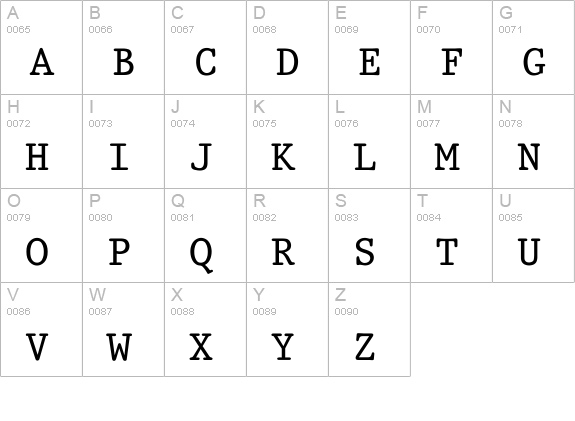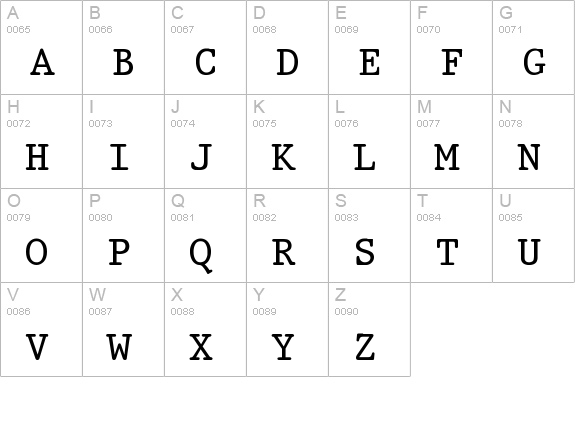
Shalemar Font Details
Shalemar font is a captivating typeface that effortlessly blends elegance with a modern twist. Its sleek and stylish design makes it the perfect choice for a wide range of creative projects, from branding and advertising to packaging and web design. With its clean lines and well-defined curves, Shalemar font exudes a sense of professionalism and sophistication. The unique combination of sharp angles and soft curves creates a harmonious balance that catches the eye and leaves a lasting impression. One of the most appealing aspects of Shalemar font is that it is available for free download at FontsMarket.com. This means that you can easily add this stunning typeface to your collection without any cost. Whether you're a professional designer or a hobbyist, having access to high-quality fonts like Shalemar font can greatly enhance your creative endeavors. The versatility of Shalemar font allows it to be used in a variety of contexts. Its legibility ensures that your message will be conveyed clearly and effectively, whether it's in a logo, headline, or body text. Its range of weights and styles also allows for flexibility in design, giving you the freedom to experiment and create unique compositions. Shalemar font is designed to make a statement and elevate your designs to a whole new level. Its timeless beauty and modern appeal make it a must-have for any designer looking to make a lasting impact. So why wait? Download Shalemar font for free at FontsMarket.com and let your creativity soar.